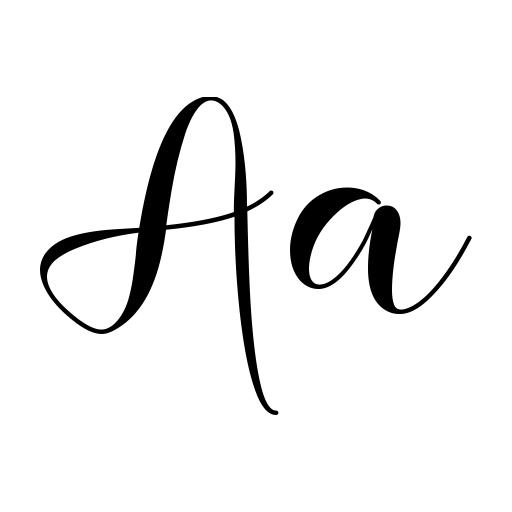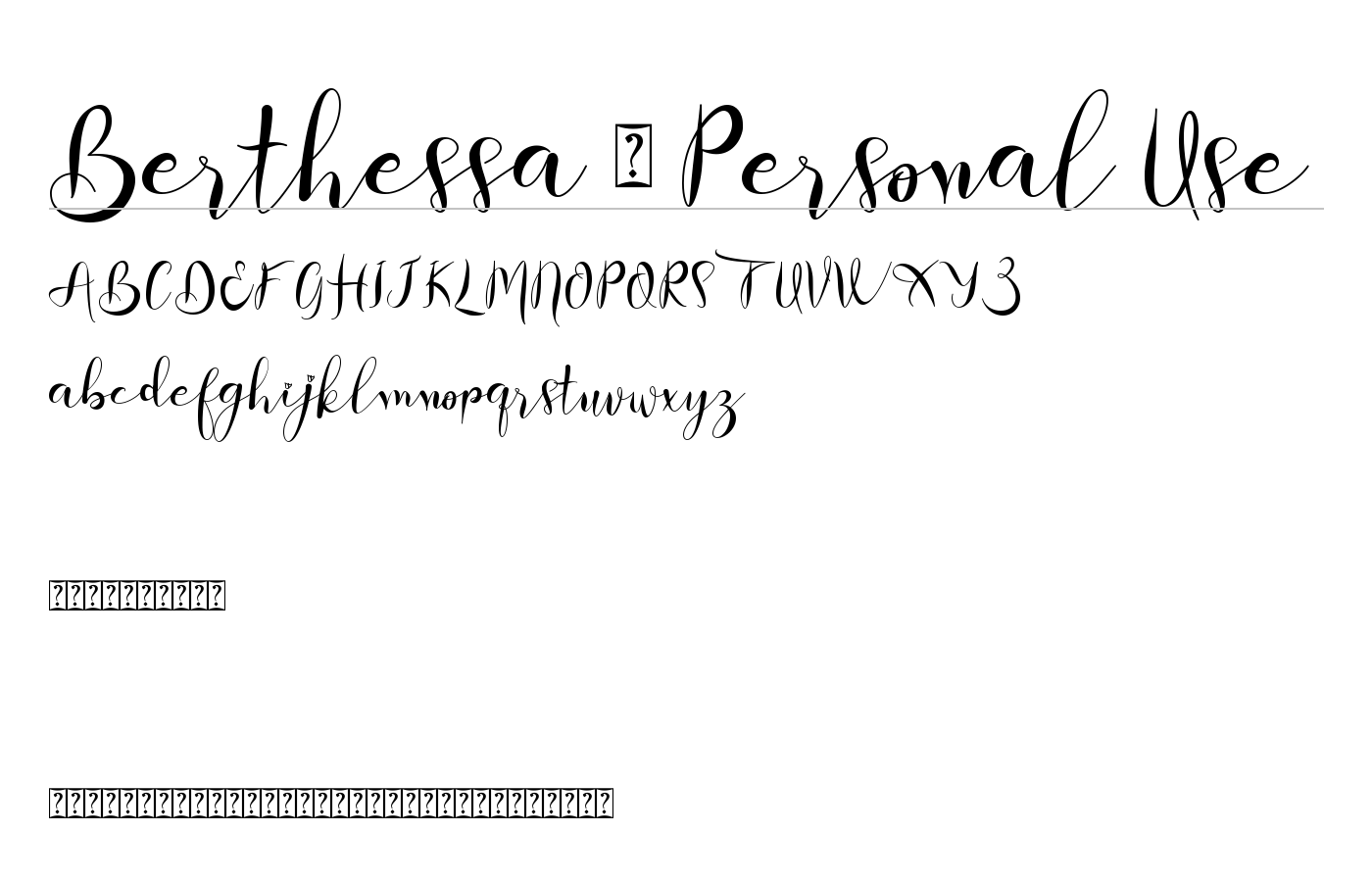
Berthessa is an elegant script font with a graceful, hand-lettered style characterized by flowing, thin strokes and delicate swashes that give it a sophisticated yet approachable feel. Its high contrast and decorative letterforms make it ideal for creating charming invitations, branding, and headlines where a personal, artistic touch is desired. This font works best in projects that aim to evoke elegance, creativity, and warmth.
Berthessa Font
About Berthessa Font
| Font family | Berthessa Font |
| Designer | Yoga Letter 2020 (Isroni Yoga Prasetya) |